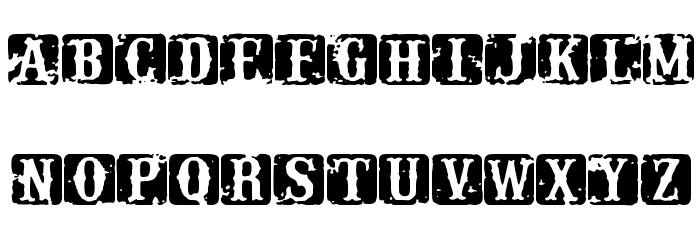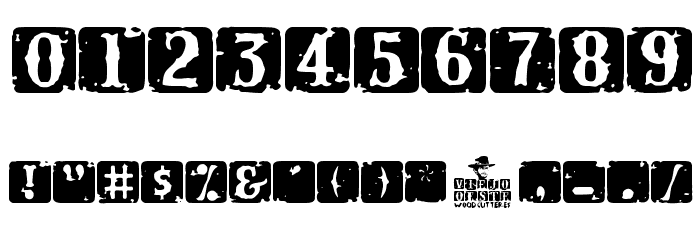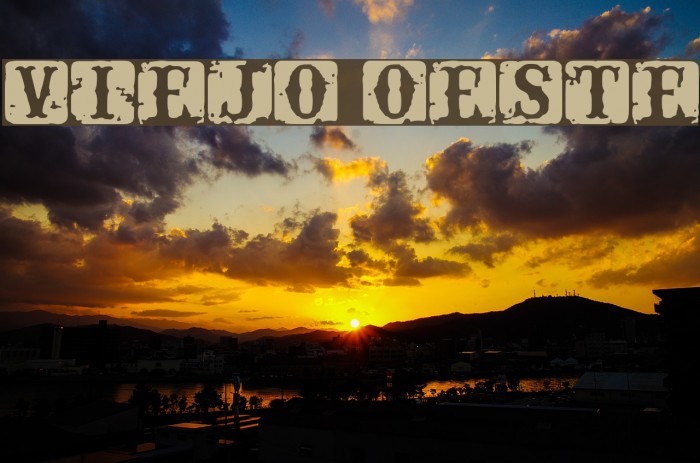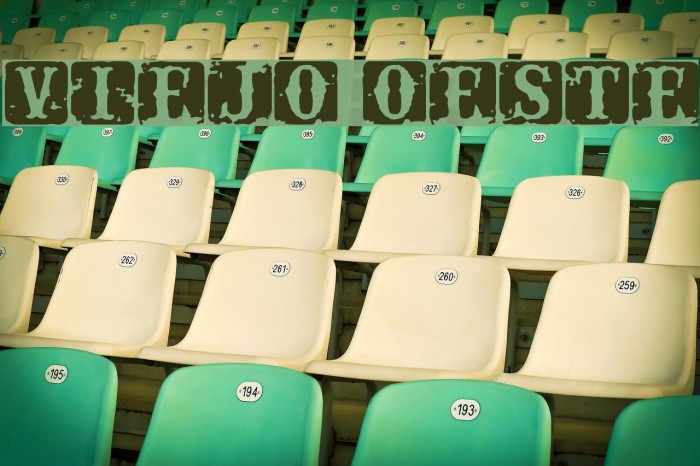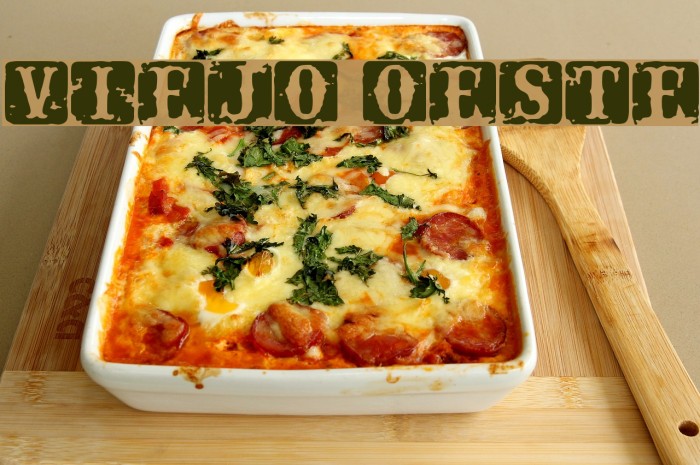
Viejo Oeste Font
This font exudes a rugged, vintage charm reminiscent of the Old West. Each character is encased in a bold, black square with distressed edges, giving it a weathered and rustic appearance. The letters are uppercase, with a strong, slab serif style that enhances their boldness and presence. The numbers and special characters follow the same design, maintaining consistency across the set. The distressed texture adds a unique character, making it ideal for designs that require a touch of nostalgia or a Western theme.
A rugged, vintage font with distressed, bold characters in a slab serif style.
- Overall Style: Vintage